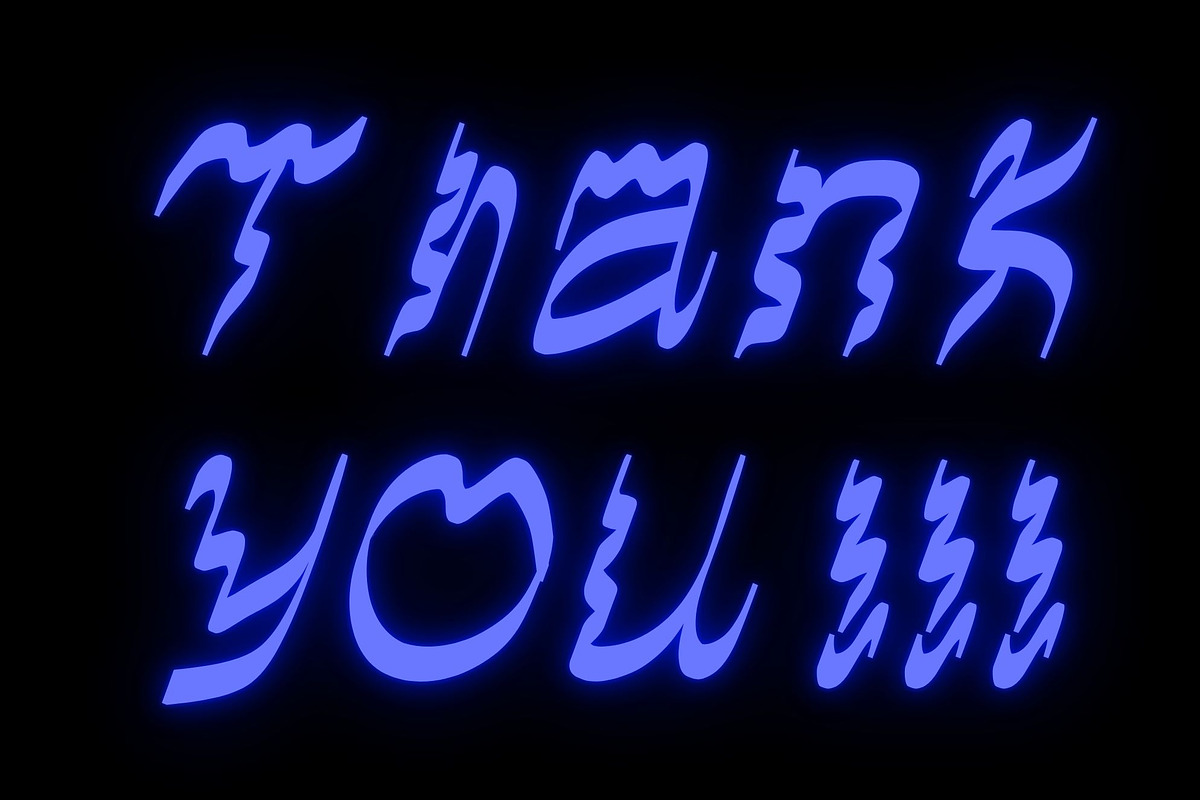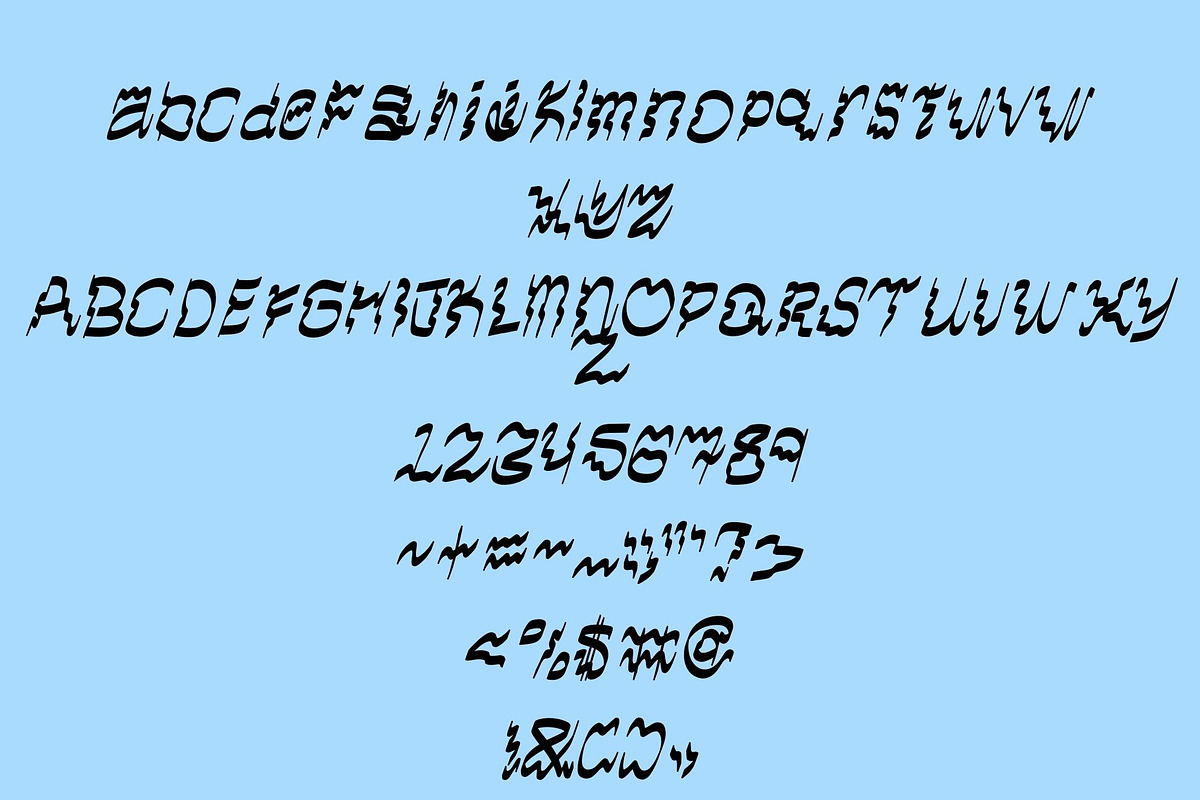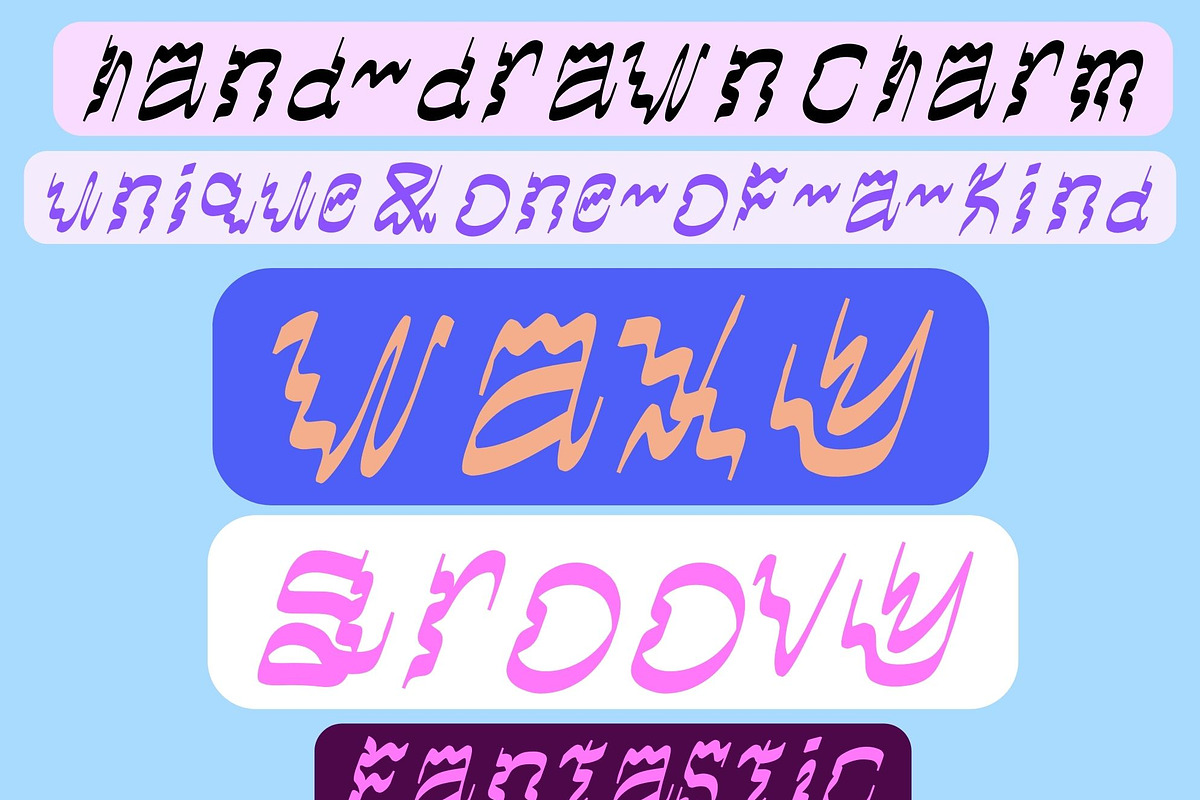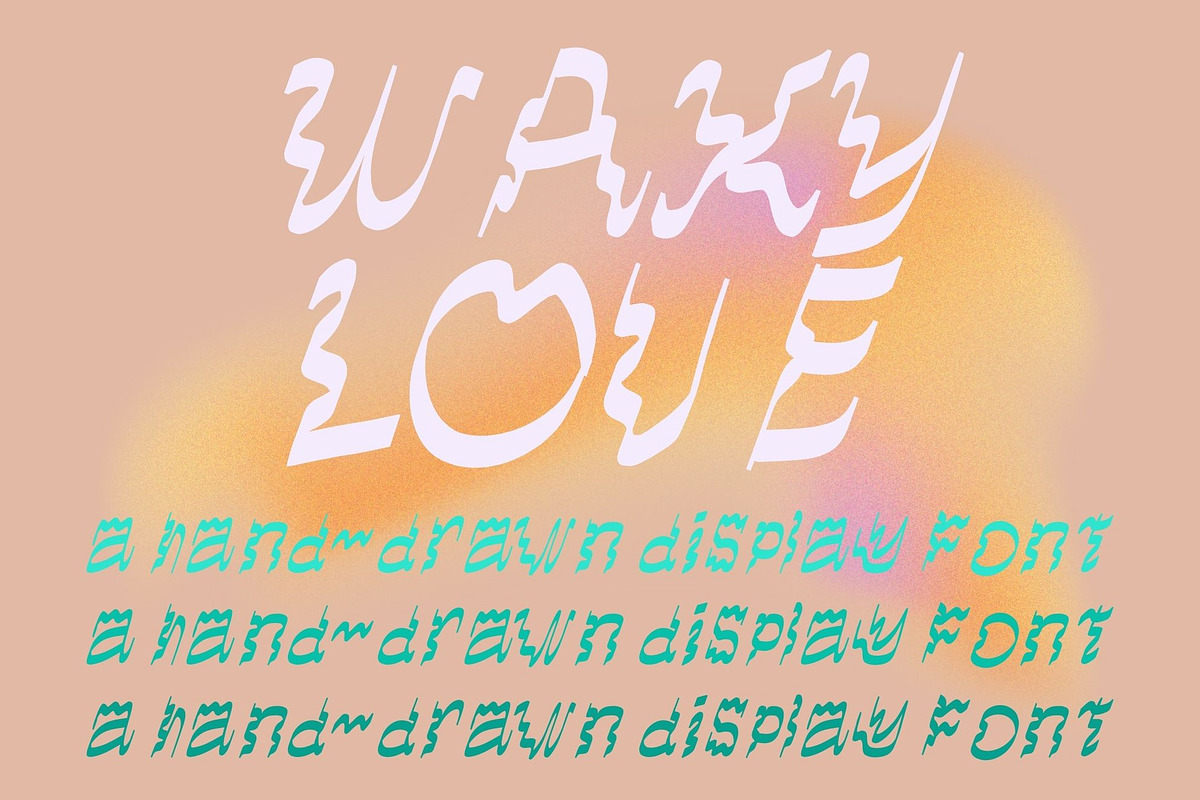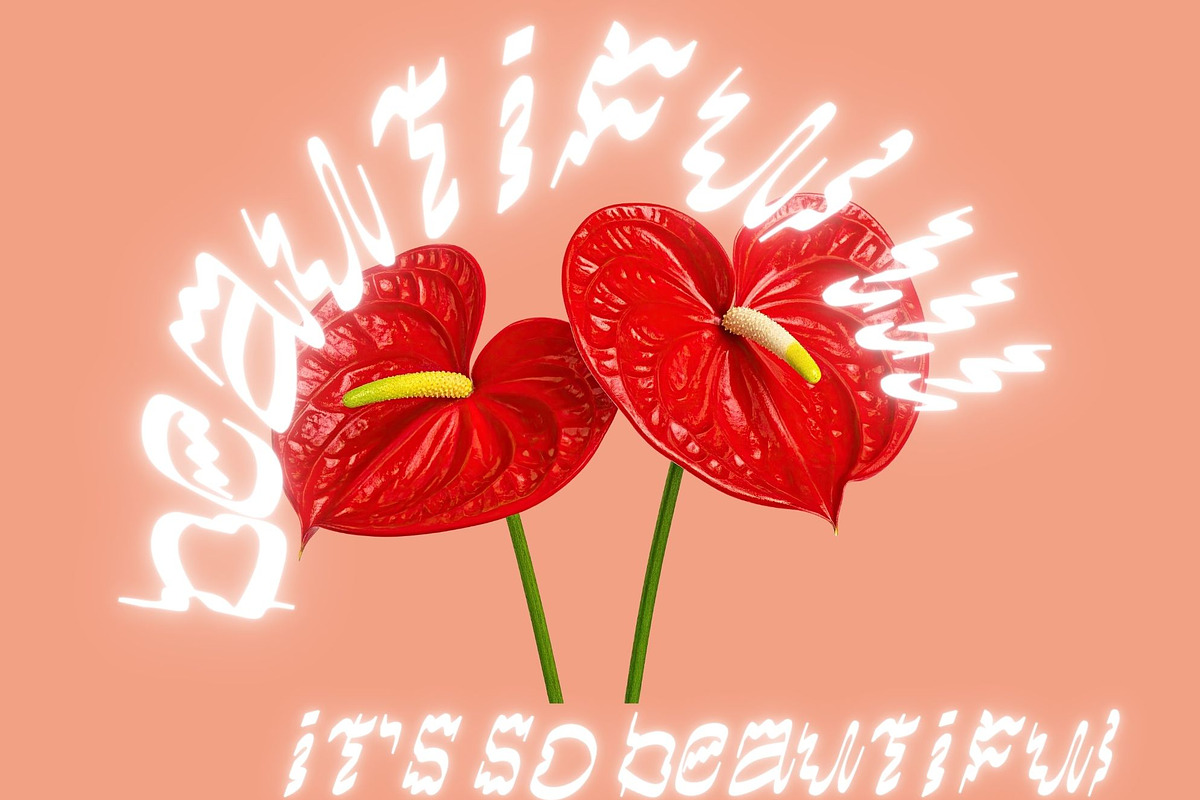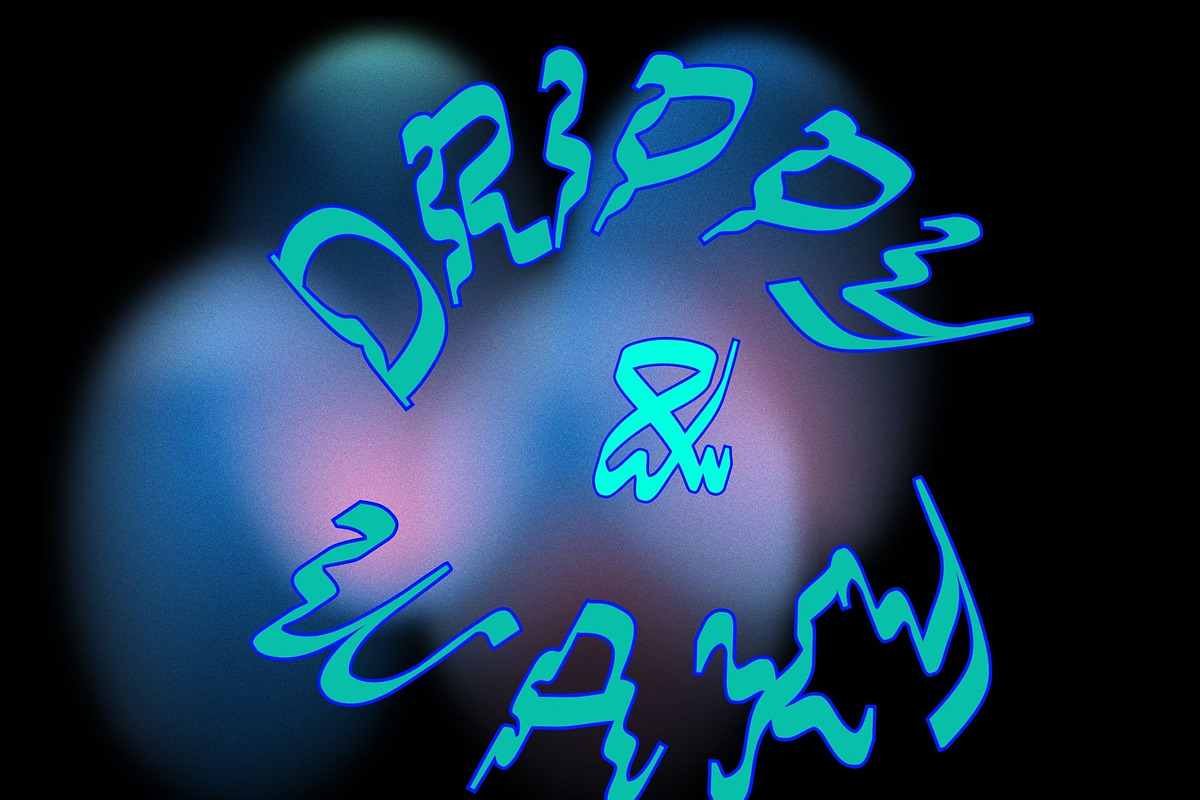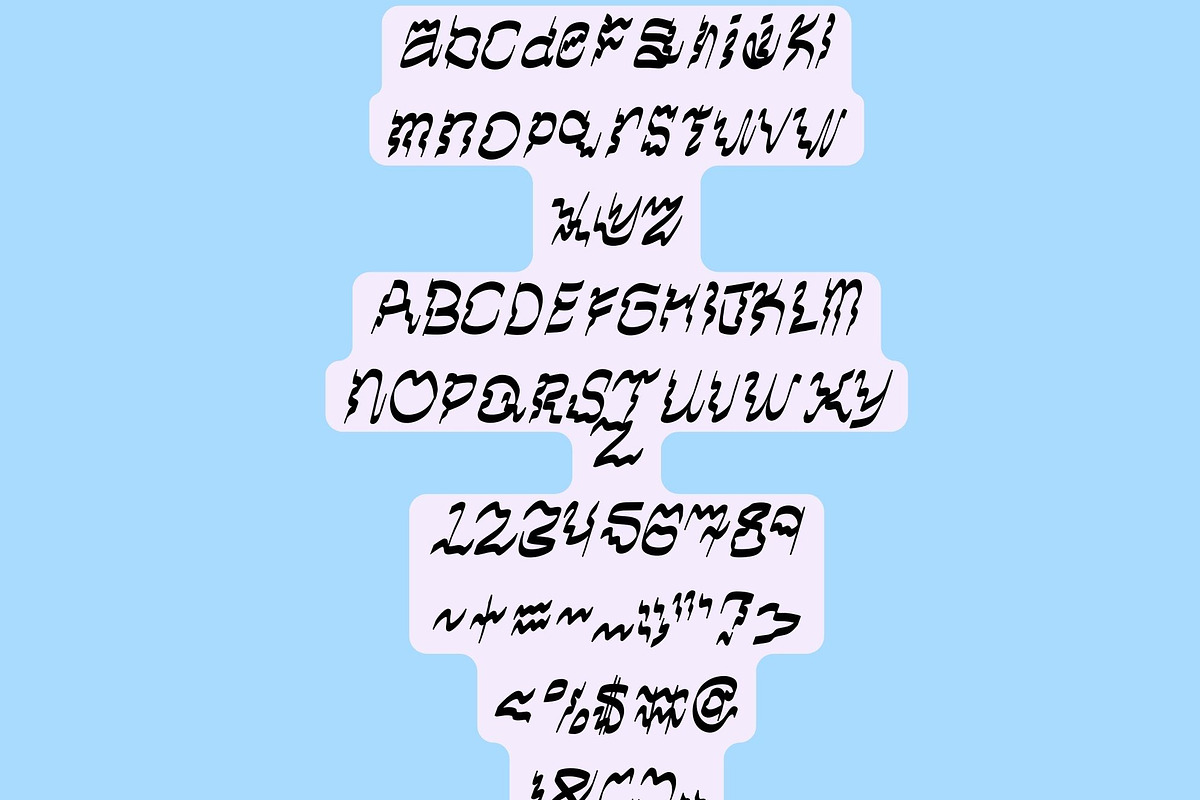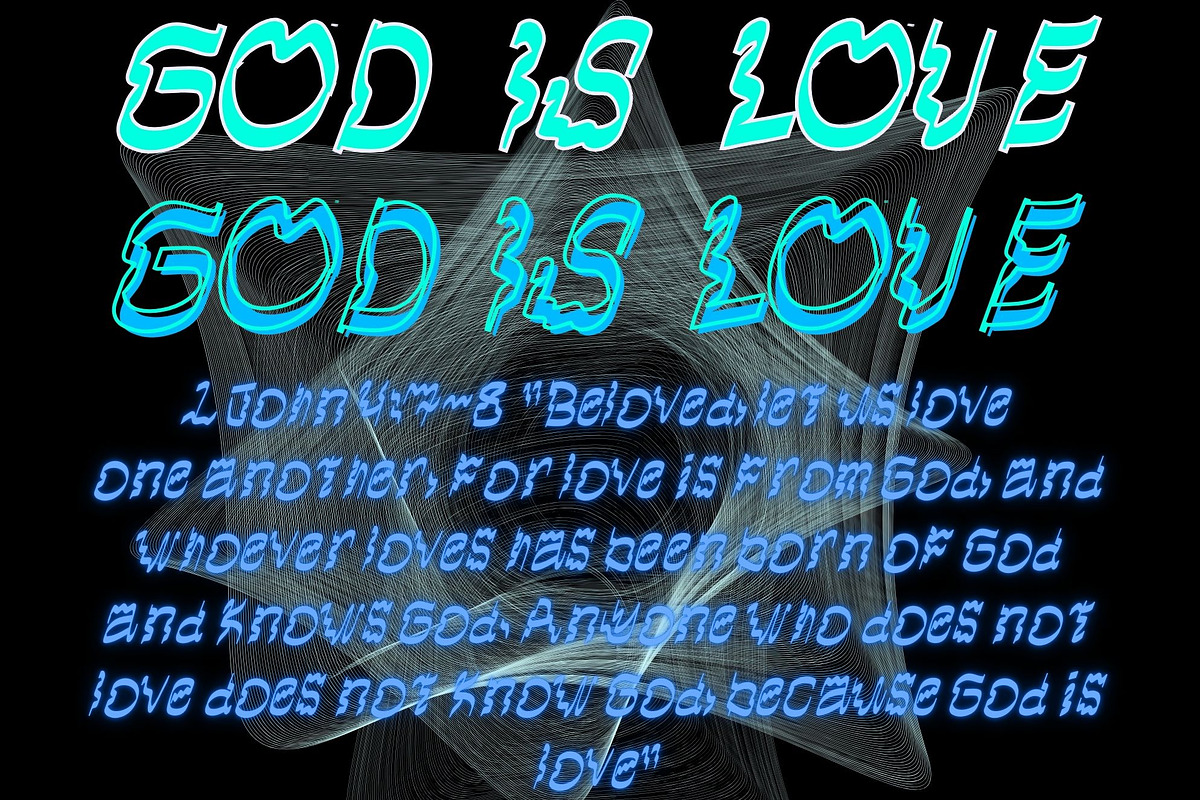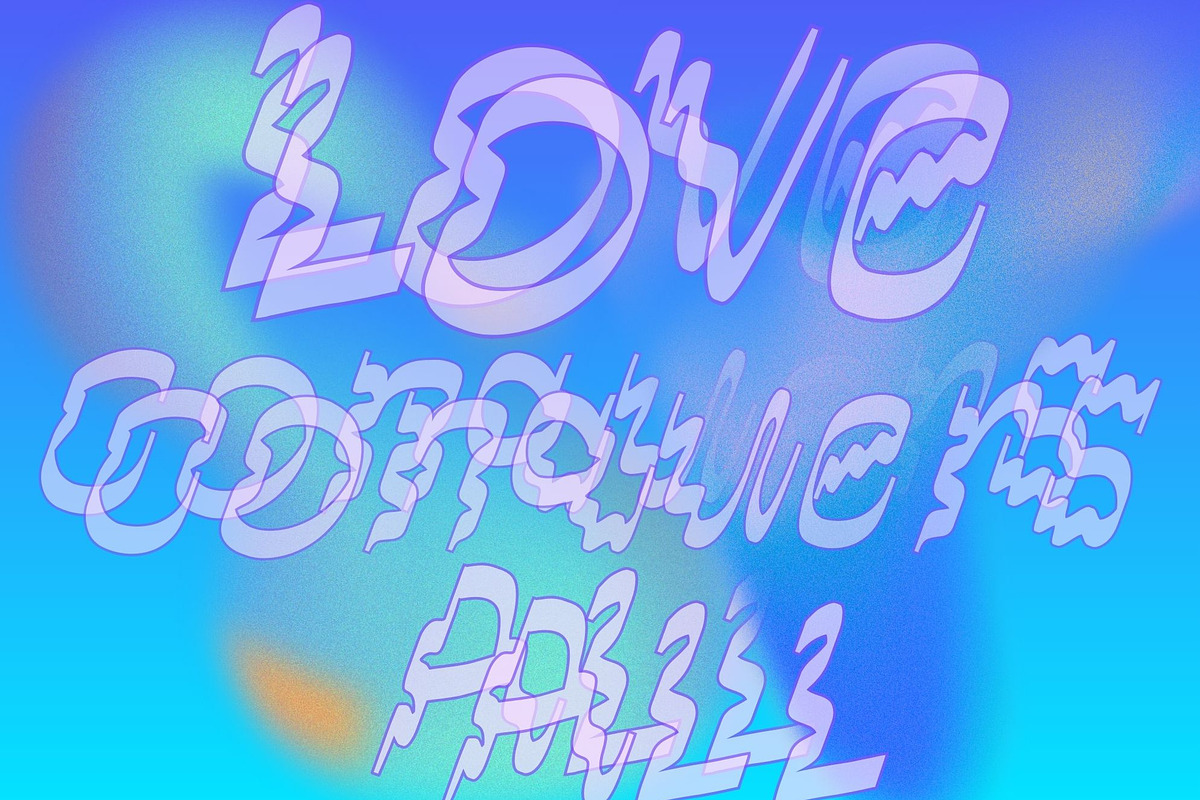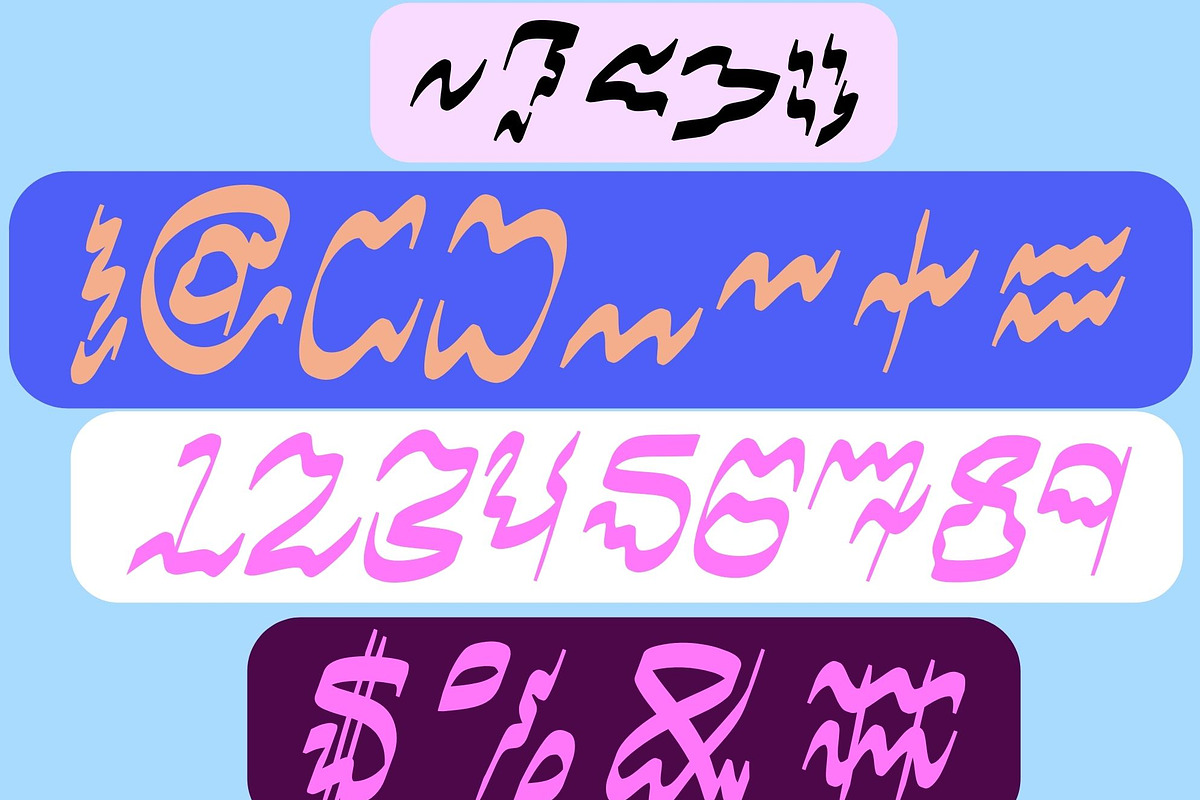
Waxy Love hand drawn Display Font
Waxy Love is a modern hand-drawn font, featuring artistically made curves on every character. If you are looking for a hip and on-trend display font for your contemporary design work, look no further than "Waxy Love" . This font would do wonderfully on an album cover, t-shirt, display advertisement for events or products. The waxy effect in this font is inspired by the malleable nature of the substance of wax... and , also inspired by, well, love. Because at the end of the day, love will conquer all . Have fun creating.
lowercase/uppercase letters of the full English alphabet
standard symbols and numbers